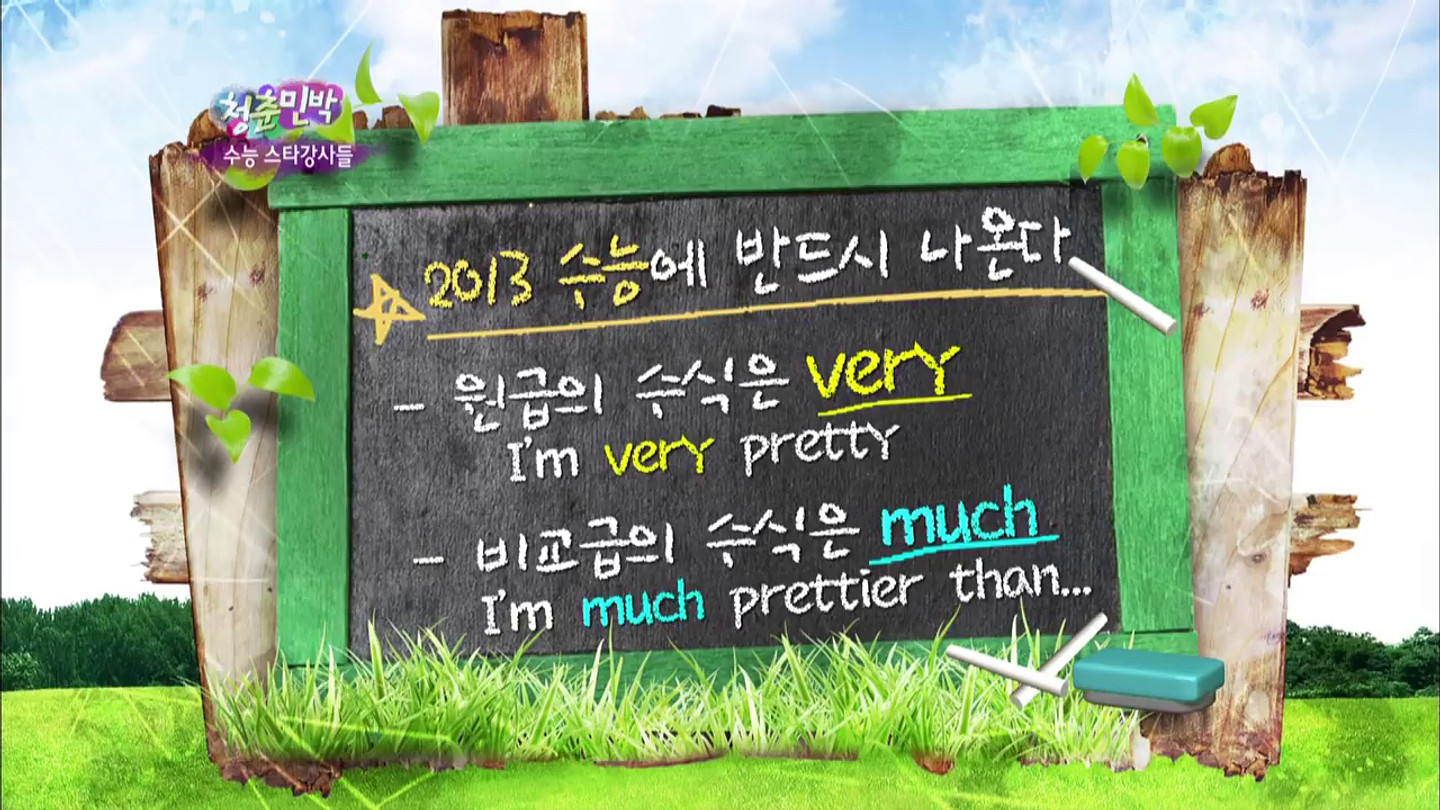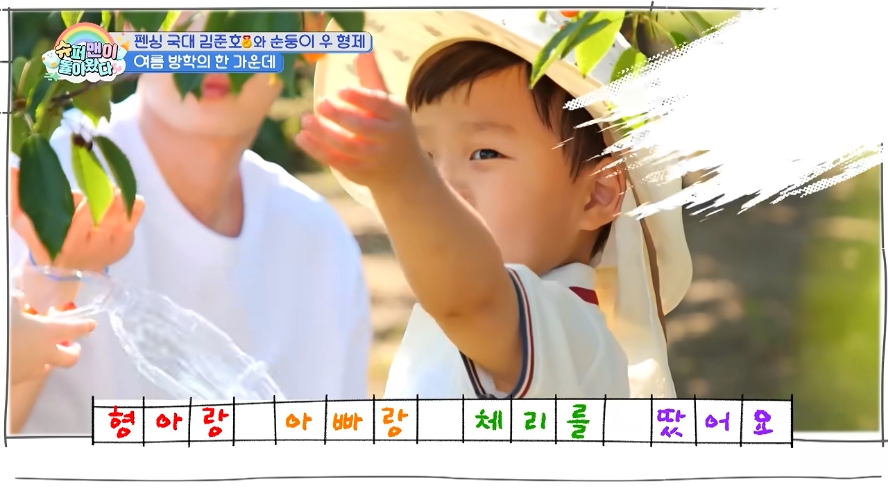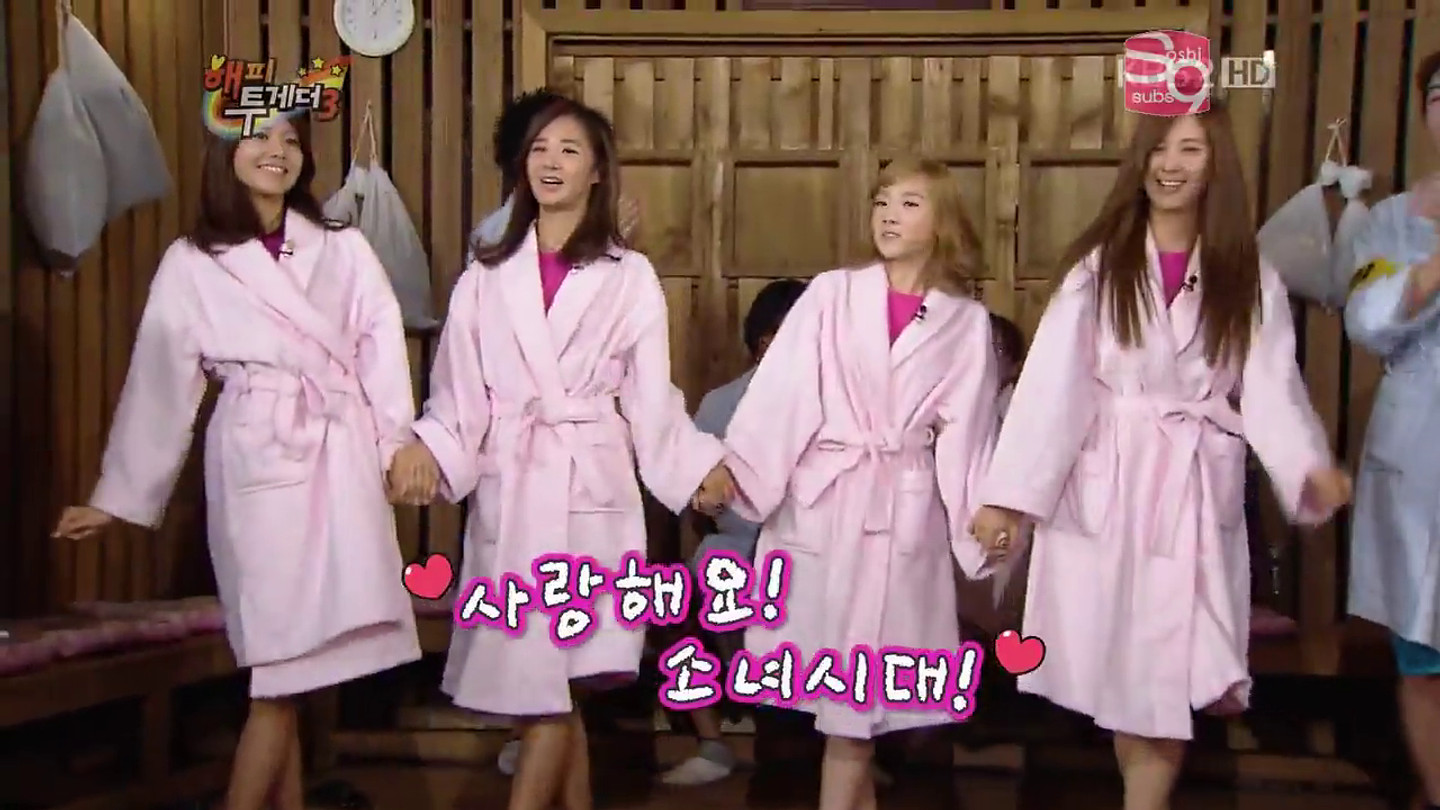
Return of Superman Re-Used Font
What is the name of the Korean font that Return of Superman rainbow colored text used here, same one from Win Win, Star Golden Bell, Happy Together & Invincible Youth before?